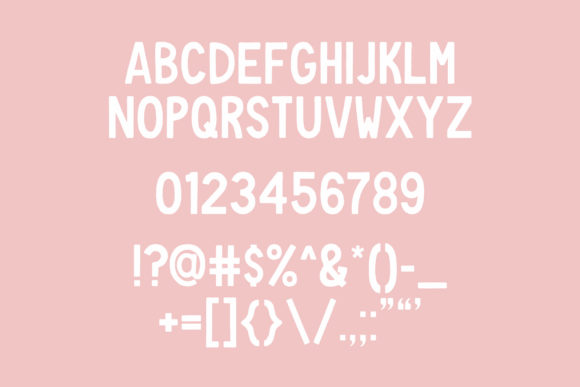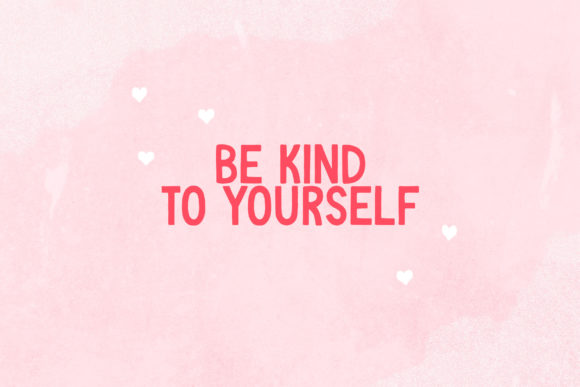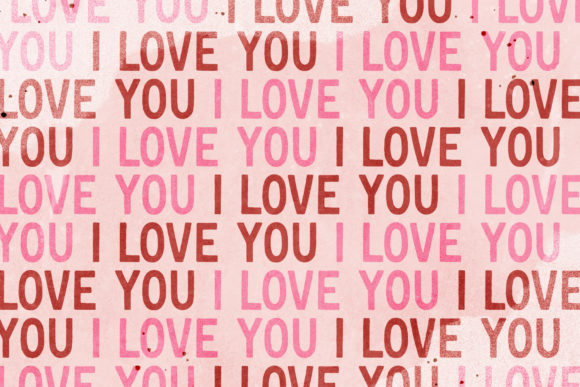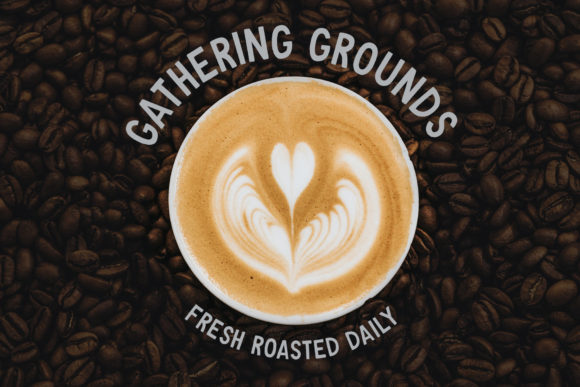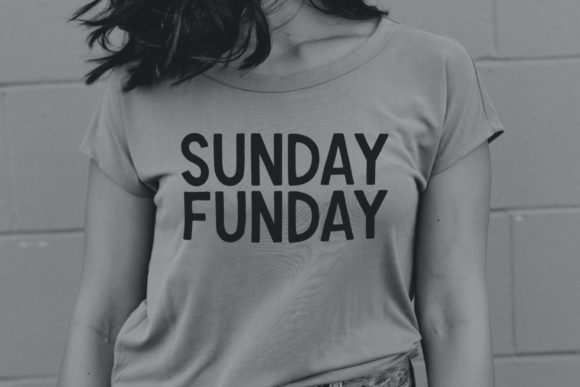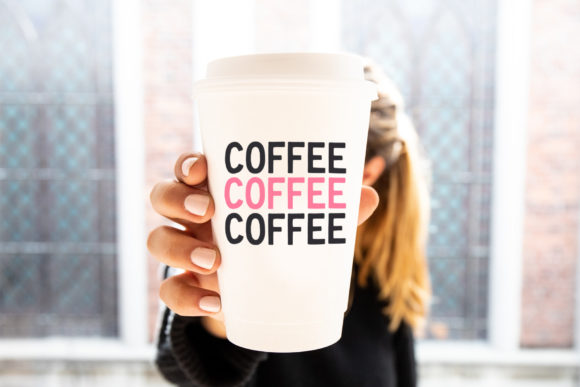
Introducing Garage Band Font: A Vintage-Inspired Bold Display Font
Are you tired of using the same old fonts in your designs? Do you want to add a touch of uniqueness and personality to your creations? Look no further than Garage Band Font, a vintage-inspired and bold display font that’s sure to make your designs stand out. In this article, we’ll take a closer look at Garage Band Font, its features, and how it can elevate your designs.
What is Garage Band Font?
Garage Band Font is a bold display font that’s inspired by the classic fonts of the past. It’s imposing, attention-grabbing, and features uniquely shaped letters that will add a distinct touch to your designs. Whether you’re a designer, crafty DIY enthusiast, or simply someone who loves to create, Garage Band Font is the perfect addition to your font collection.
Key Features of Garage Band Font
So, what makes Garage Band Font so special? Here are some of its key features:
- Vintage-inspired design: Garage Band Font has a classic, retro feel that’s reminiscent of old-school fonts from the past.
- Bold and imposing: This font is not for the faint of heart. It’s bold, attention-grabbing, and meant to make a statement.
- Uniquely shaped letters: Each letter in Garage Band Font has its own unique shape and character, making it perfect for adding a touch of personality to your designs.
- Highly versatile: Whether you’re designing a logo, poster, or social media graphic, Garage Band Font can be used for a wide range of projects.
How to Use Garage Band Font in Your Designs
Now that we’ve covered the features of Garage Band Font, let’s talk about how to use it in your designs. Here are some ideas to get you started:
- Logos and branding: Use Garage Band Font to create a bold and memorable logo that will help your brand stand out.
- Posters and flyers: Add a touch of vintage flair to your posters and flyers with Garage Band Font.
- Social media graphics: Use Garage Band Font to create eye-catching social media graphics that will grab the attention of your followers.
- DIY projects: Whether you’re making a sign, banner, or other DIY project, Garage Band Font is a great choice.
Tips for Pairing Garage Band Font with Other Fonts
When using Garage Band Font in your designs, it’s often a good idea to pair it with other fonts to create visual interest. Here are some tips for pairing Garage Band Font with other fonts:
- Use a contrasting font: Pair Garage Band Font with a font that’s more minimalist or elegant to create contrast.
- Choose a font with a similar feel: If you want to create a cohesive look, choose a font that has a similar vintage or retro feel to Garage Band Font.
- Experiment with different combinations: Don’t be afraid to try out different font combinations to see what works best for your design.
Garage Band Font is a unique and versatile font that’s perfect for designers, crafty DIY enthusiasts, and anyone who wants to add a touch of personality to their creations. With its vintage-inspired design, bold and imposing letters, and highly versatile nature, Garage Band Font is sure to become a staple in your font collection. So why wait? Download Garage Band Font today and start creating designs that stand out from the crowd!